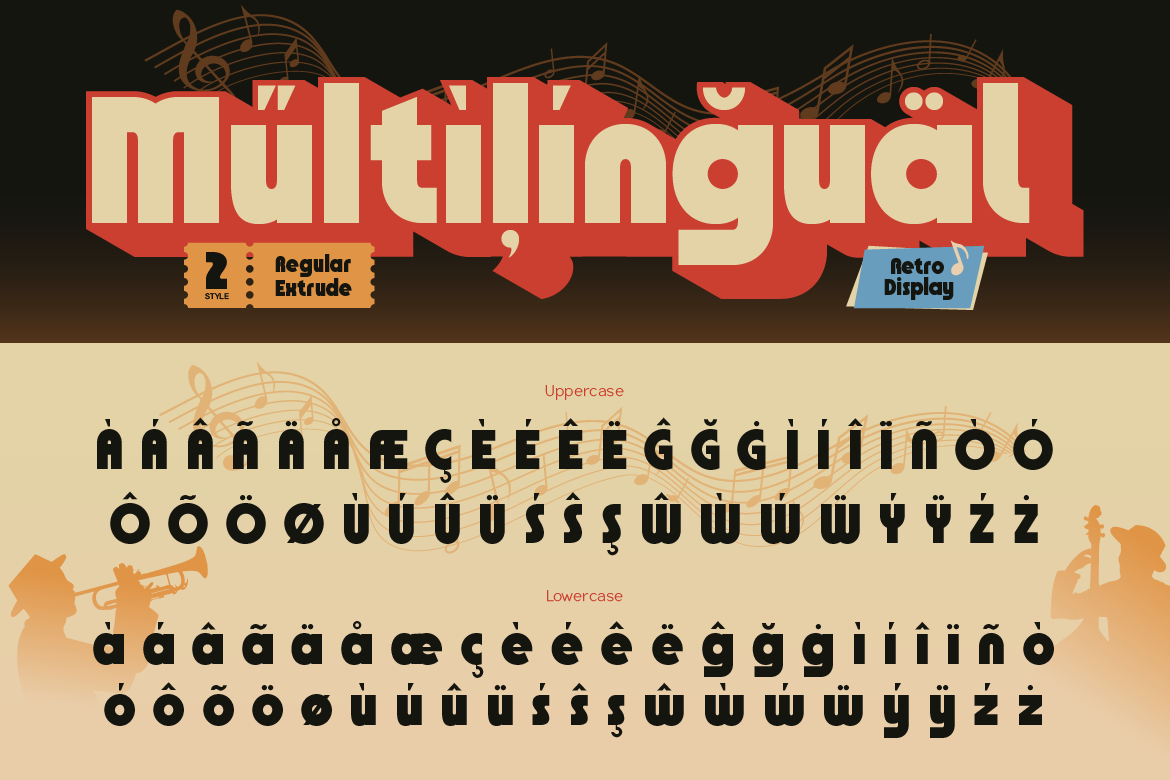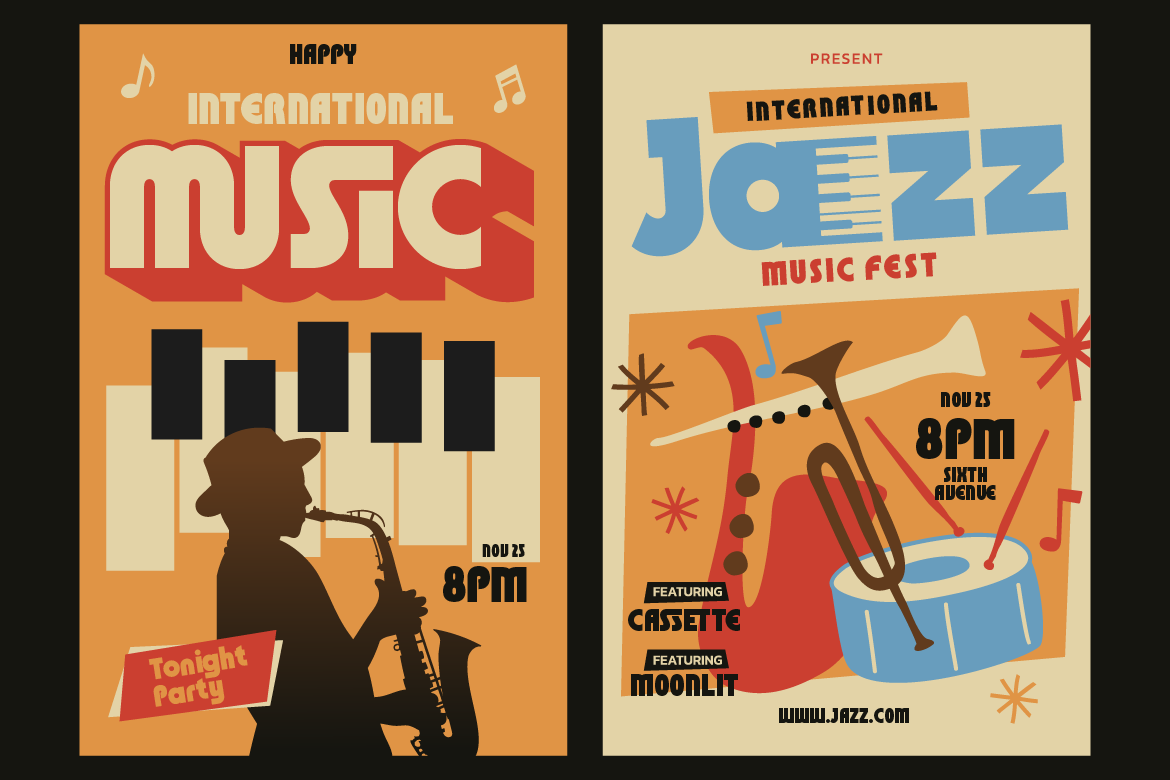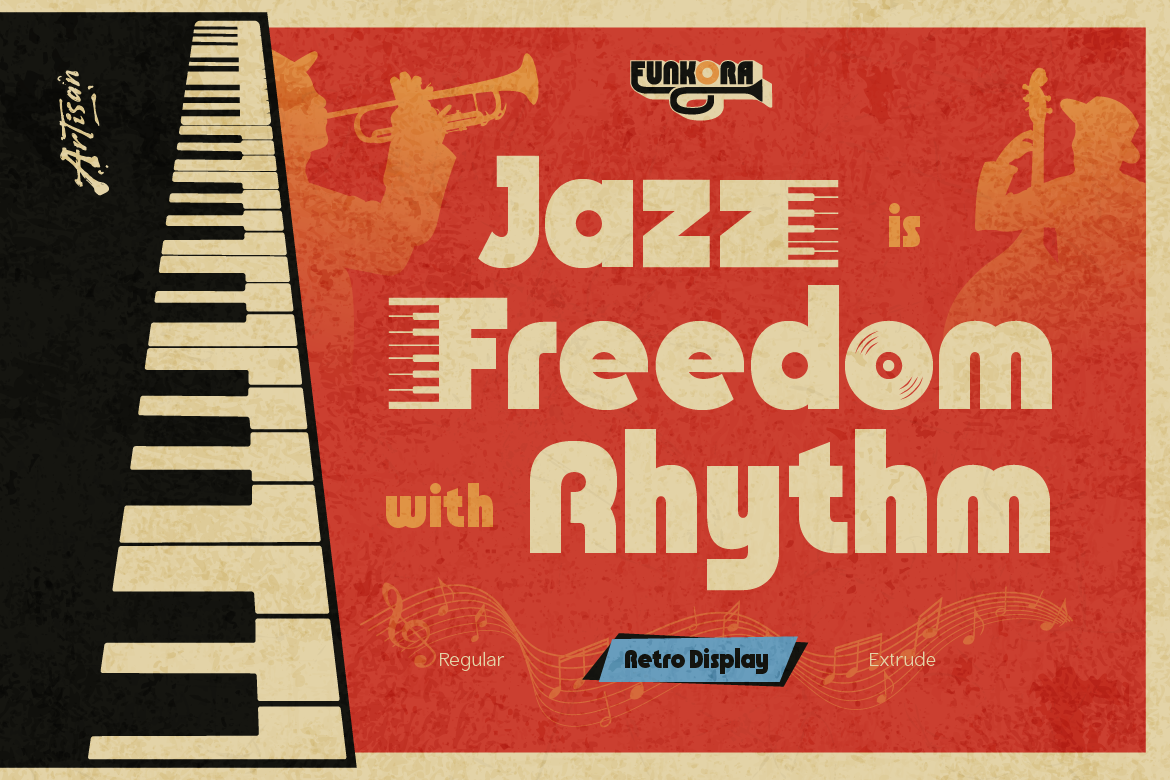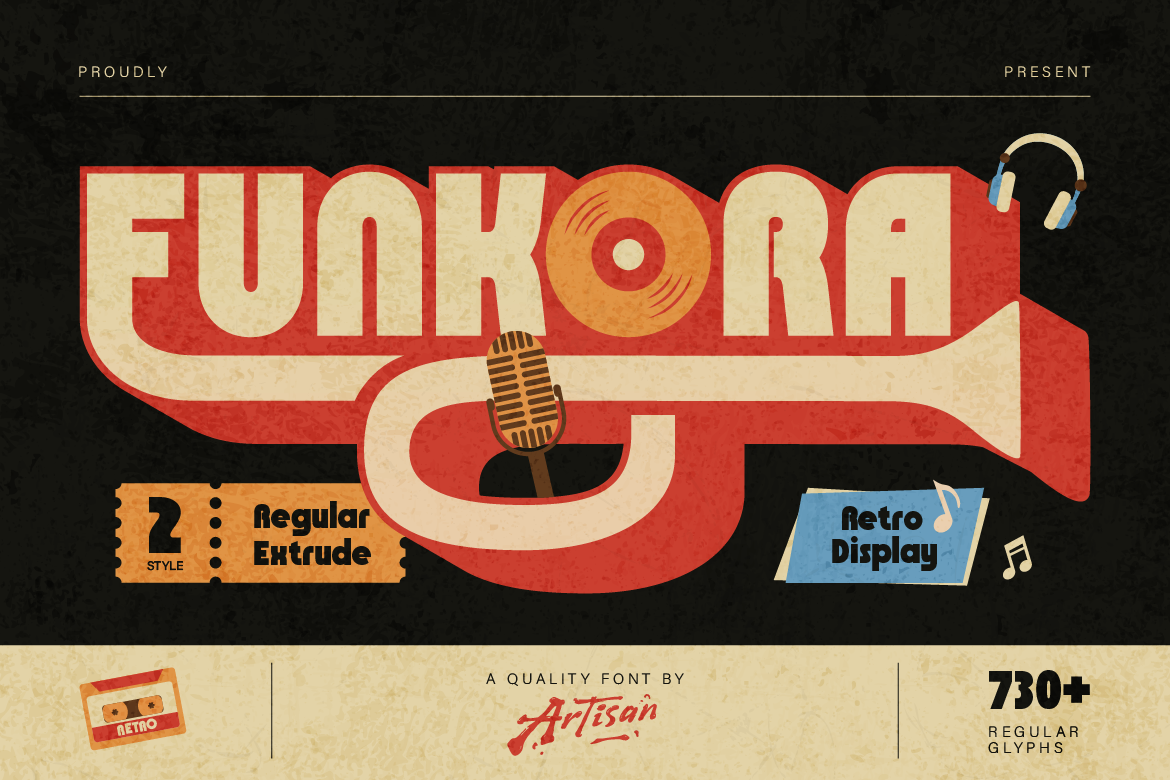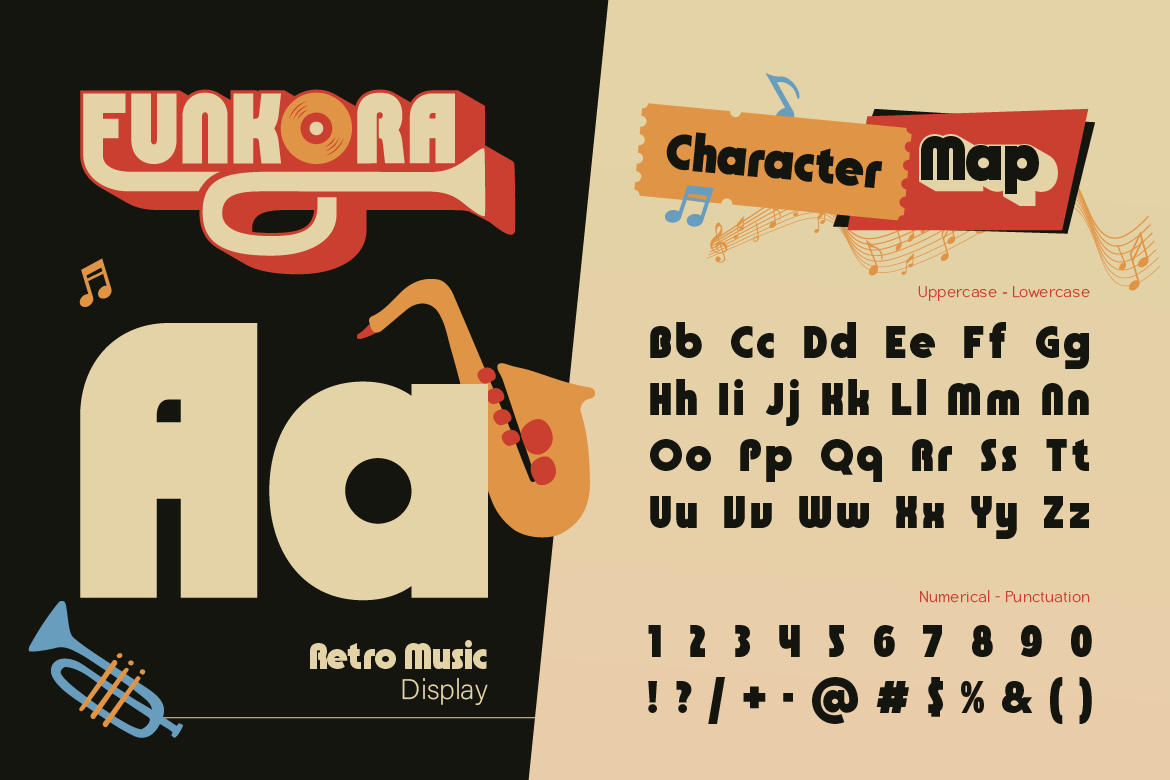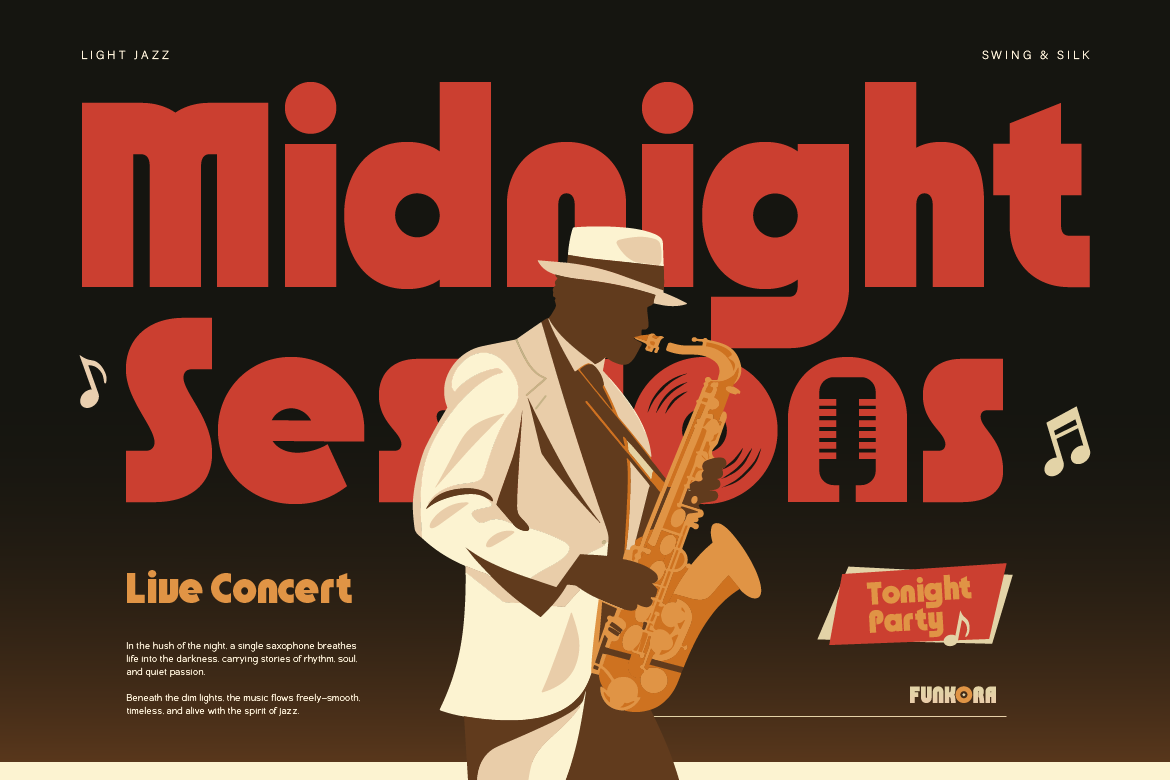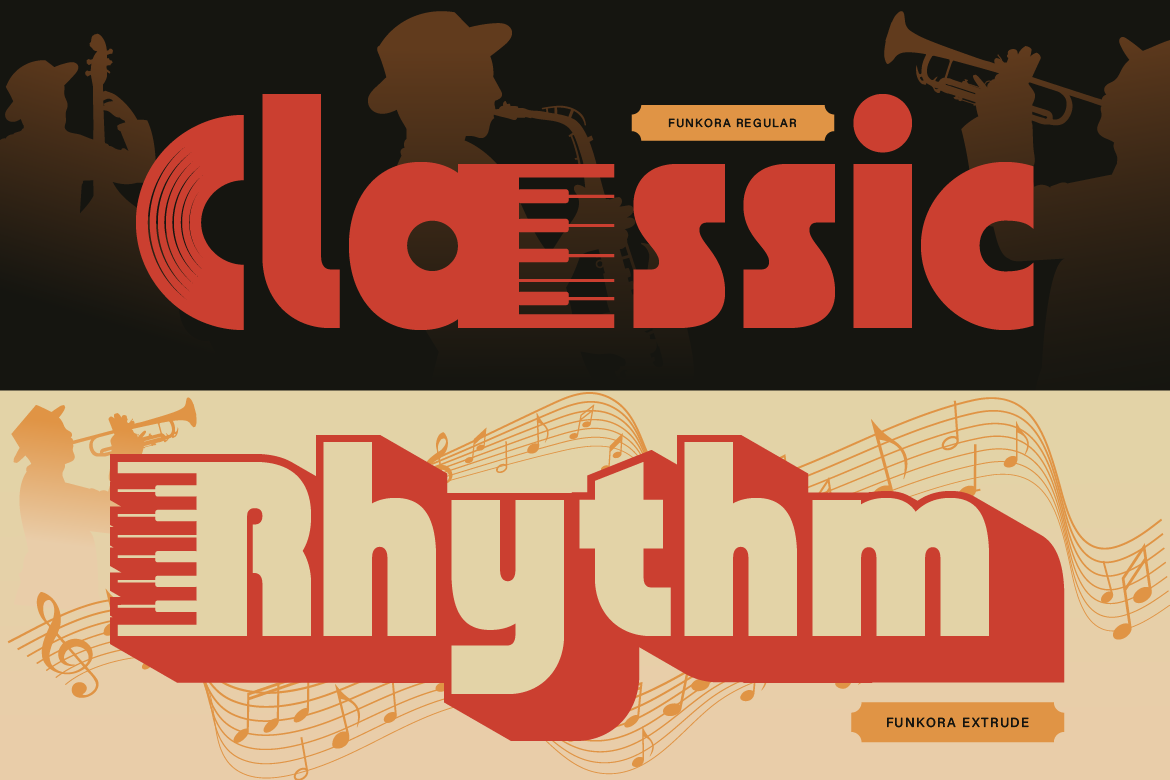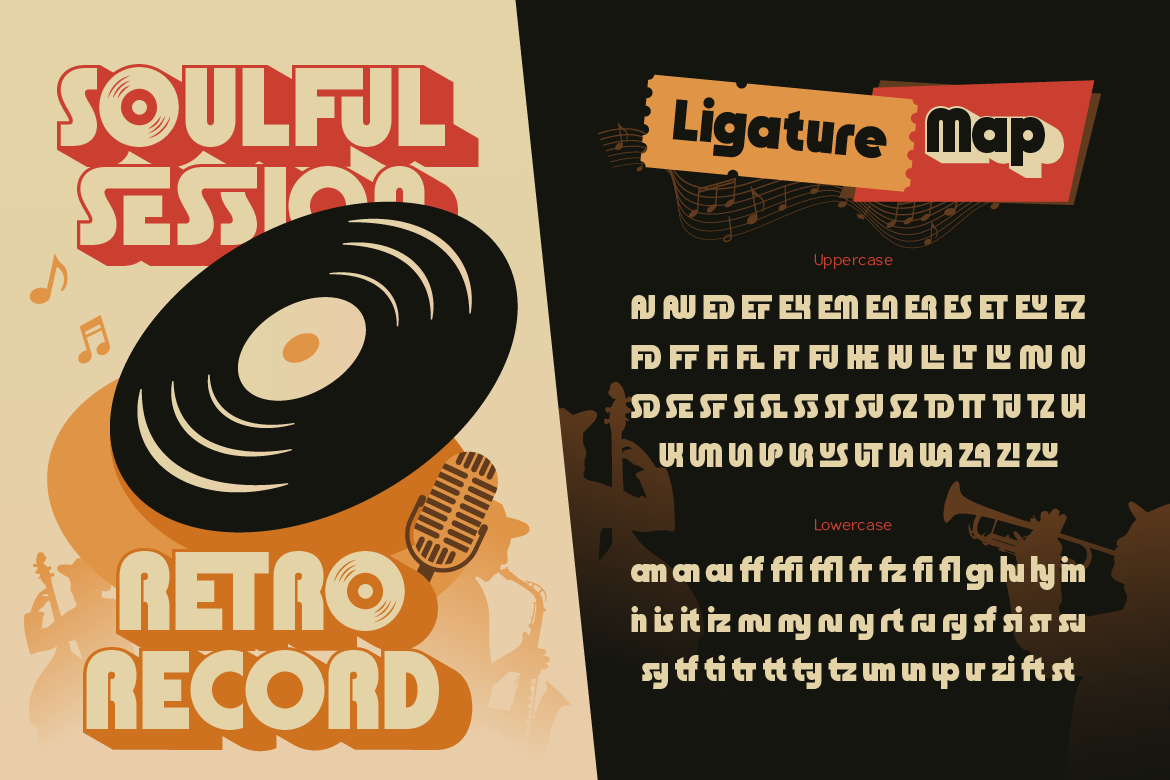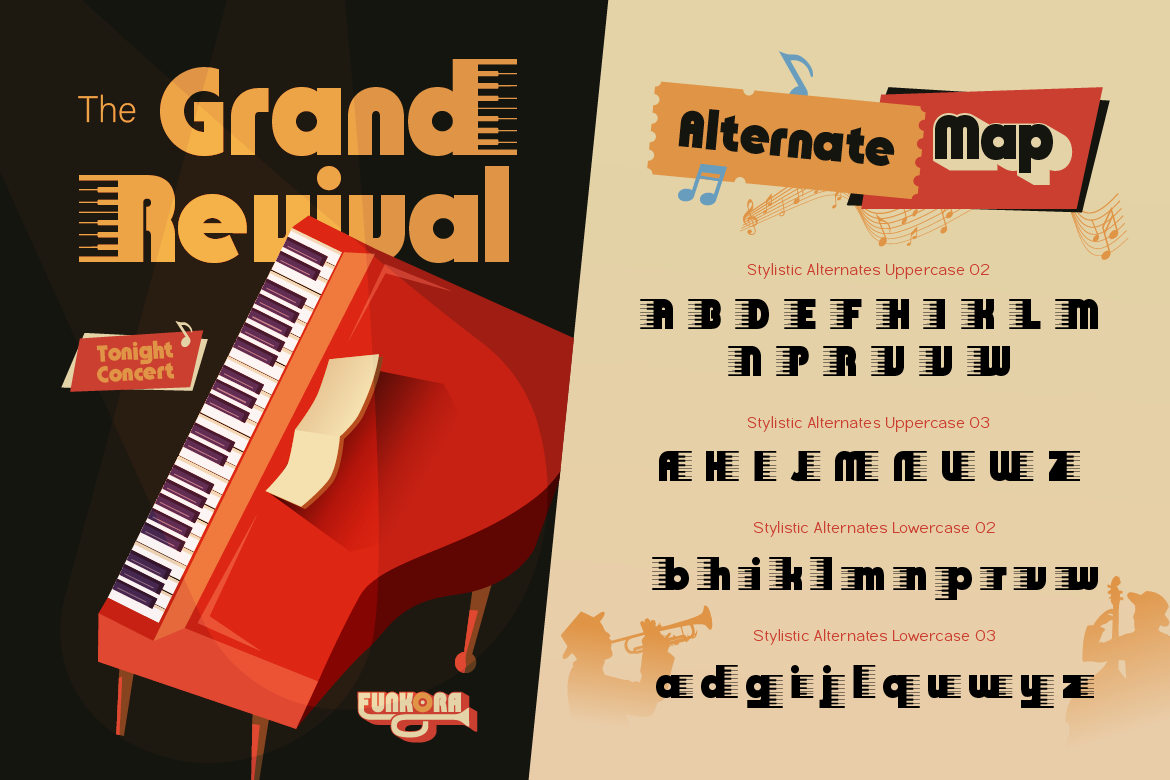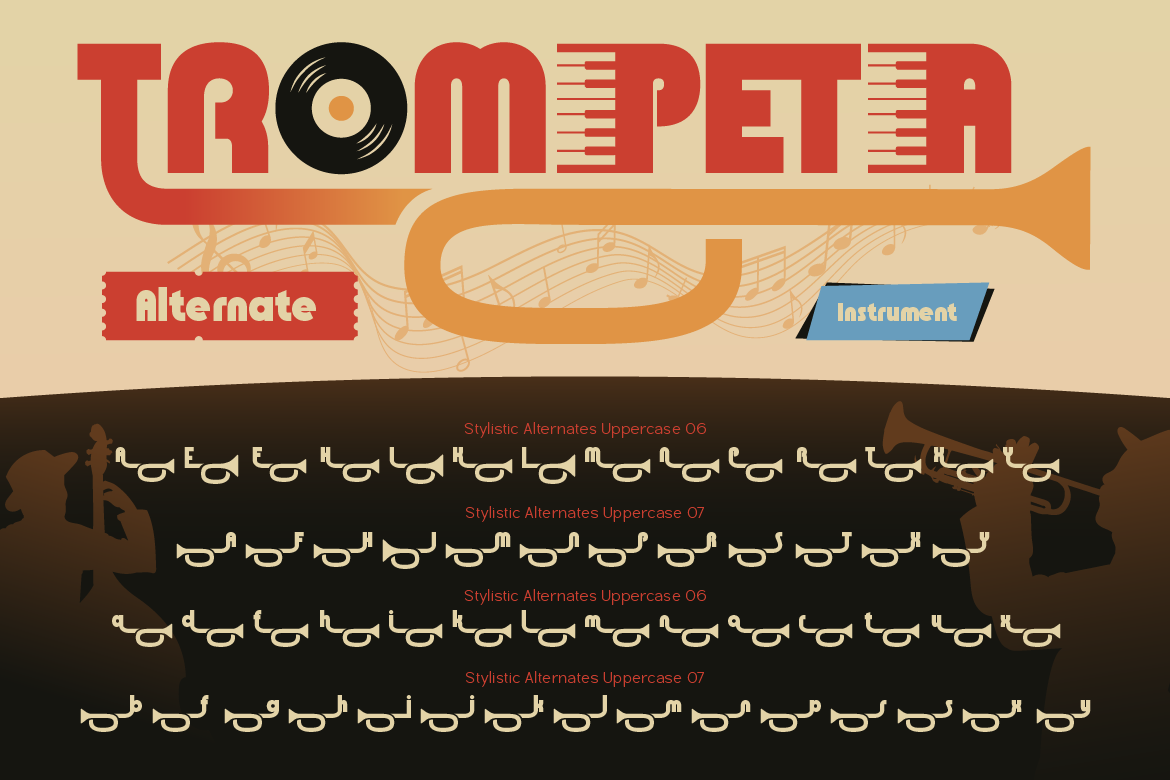
Funkora
Regular
Extrude
Description
There’s something magical about the sound of vinyl spinning, the warm crackle of jazz in the air, and neon lights glowing through the night. Funkora was born from that moment — inspired by retro music culture, funky rhythms, and the timeless groove of classic records.
Funkora is a bold retro display font that brings strong vintage vibes with a modern twist. Designed with chunky letterforms, smooth curves, and playful rhythm, this font instantly captures attention and delivers a nostalgic yet fresh look.
Perfect for designs that want to stand out loud and proud, Funkora is your go-to choice for anything music-inspired, retro-themed, or creatively bold.
• A – Z set (Uppercase & Lowercase)
• Number
• Punctuation
• Alternates
• Ligatures
• Multilingual